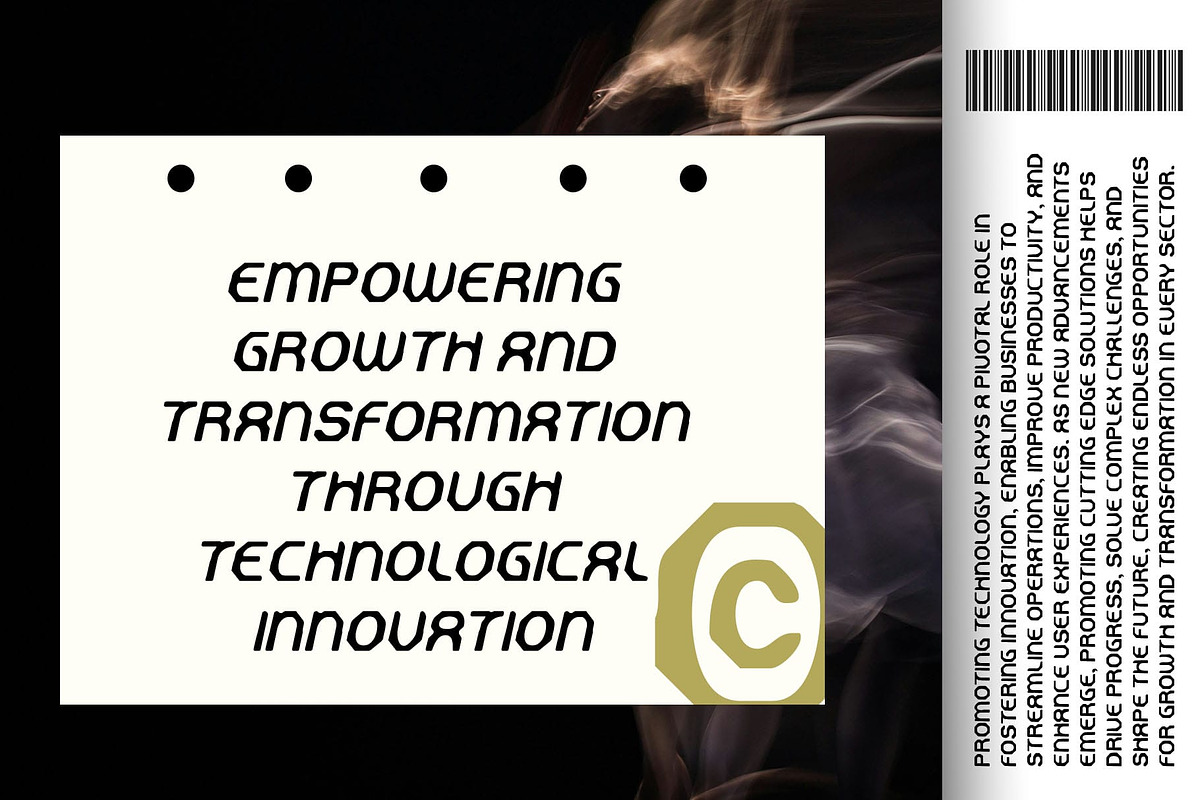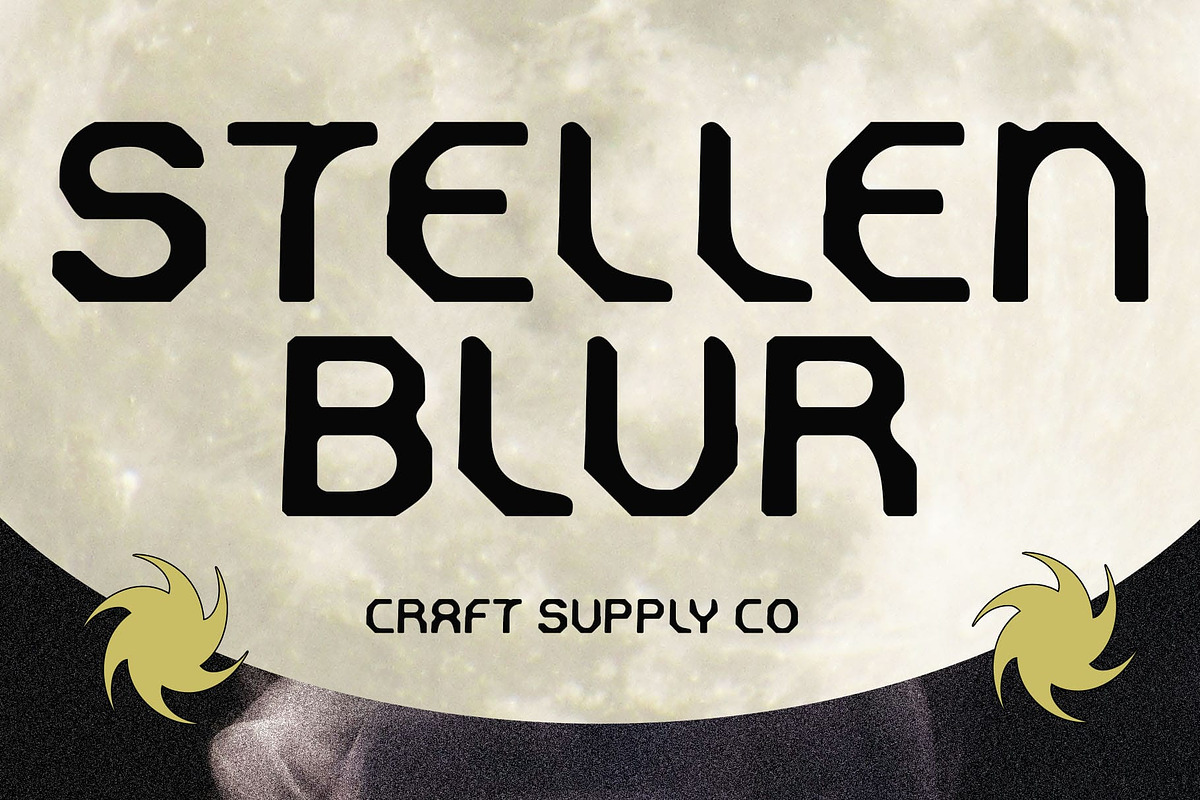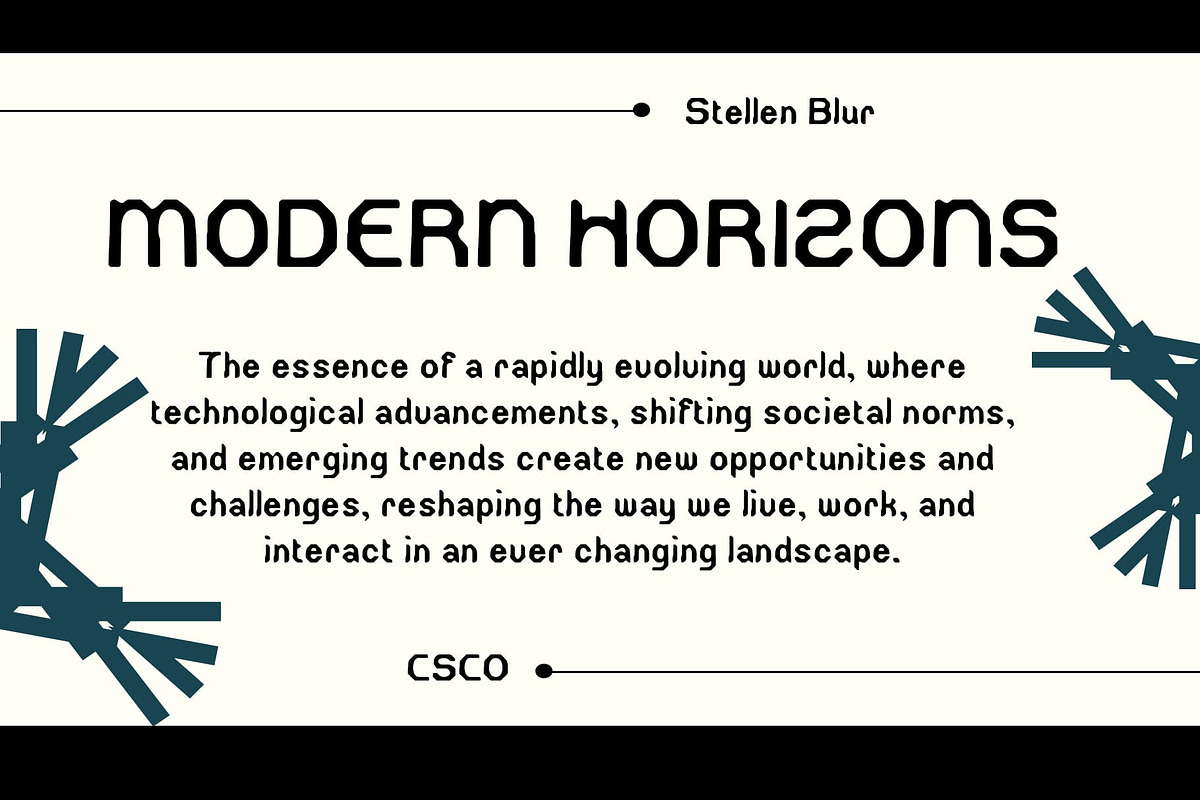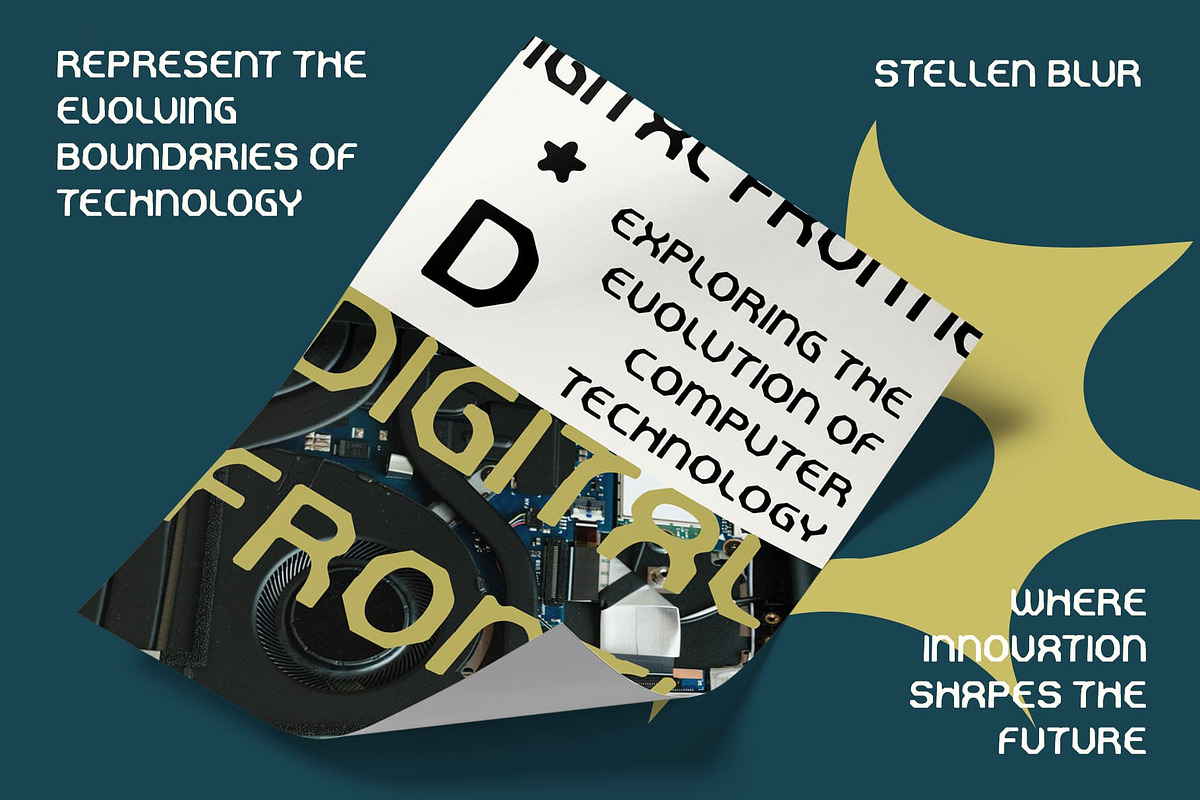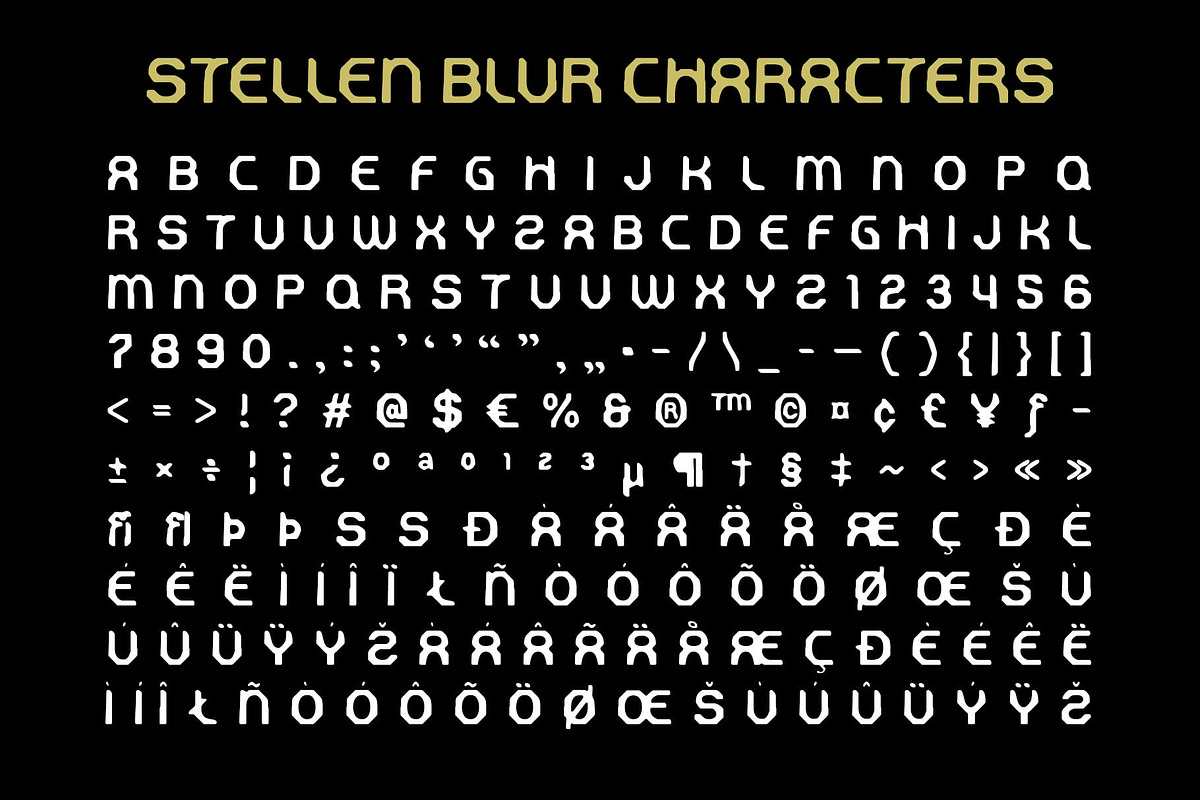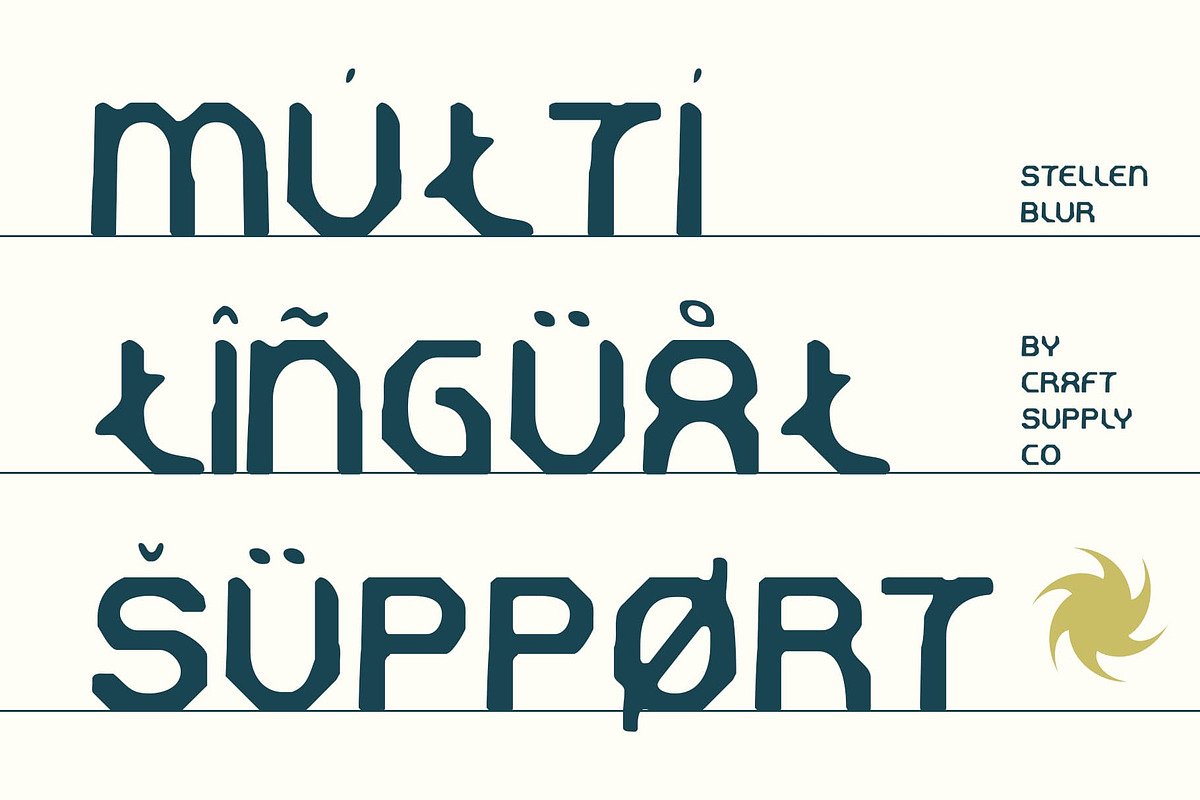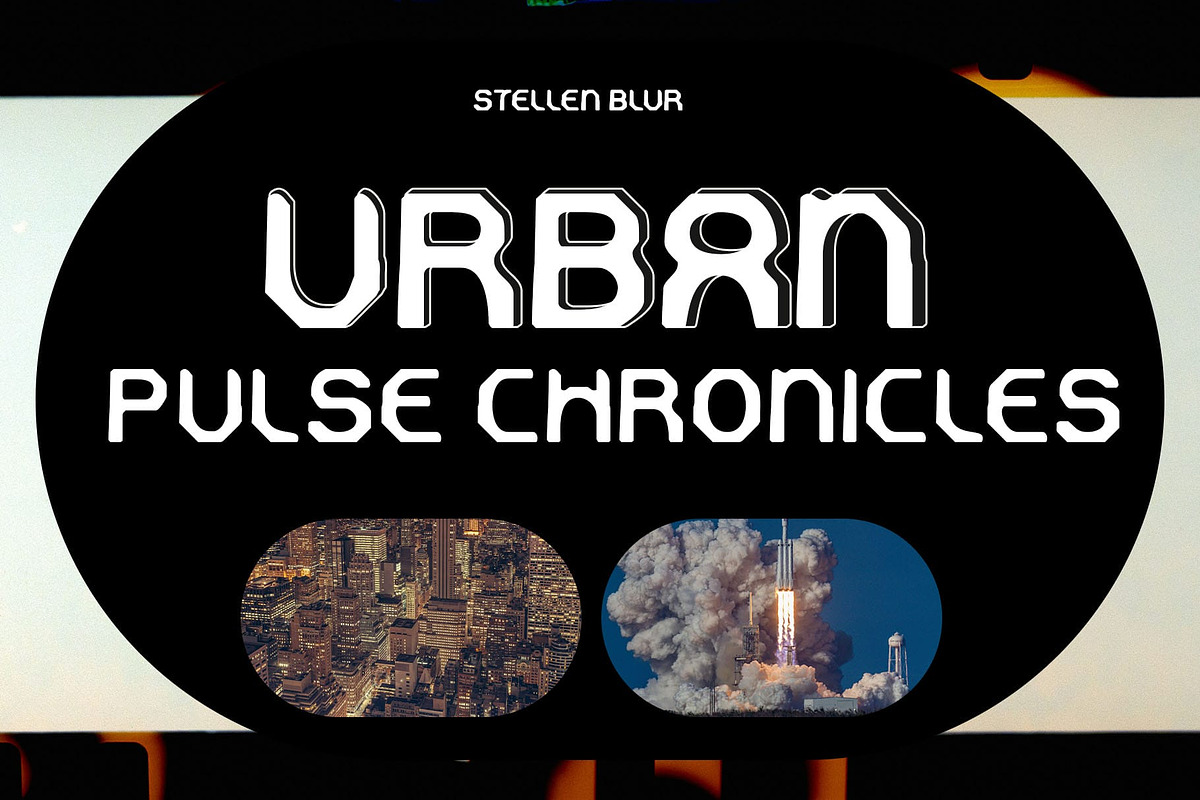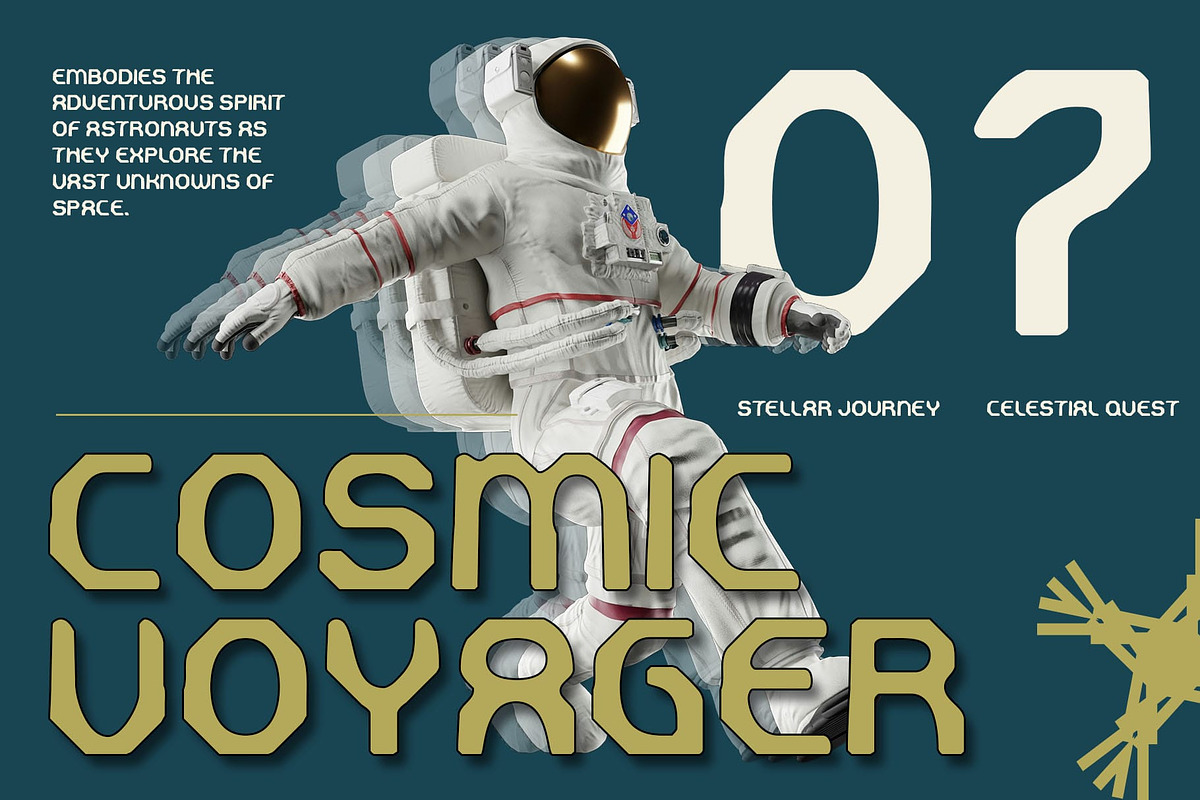
Stellen Blur
Stellen Blur Font: A Futuristic Fusion of Innovation and Motion
Modern Display Font with Futuristic and Techno Design Stellen Blur is a cutting-edge display font that combines sleek, geometric shapes with sharp lines and a techno-inspired aesthetic. Designed to capture the essence of the future, its dynamic forms evoke advanced technology and modern digital environments. The font’s futuristic qualities make it ideal for designs that require a high-tech, forward-thinking feel, offering a sophisticated and progressive presence in any project.
Blur Effect for Dynamic Visual Depth The standout feature of Stellen Blur is its captivating blur effect, which introduces an element of movement and abstraction. This unique effect softens the edges of the letterforms, creating a sense of flow and dimension that enhances the font’s overall visual impact. The blur adds a layer of intrigue, making it perfect for designs that aim to stand out with innovative and modern aesthetics.
Ideal for Digital and Futuristic Applications With its futuristic design and dynamic blur effect, Stellen Blur is ideal for digital design projects, including tech branding, futuristic posters, website headers, and promotional materials. Whether you’re creating visual identities for cutting-edge tech companies or crafting eye-catching graphics for futuristic events, Stellen Blur elevates your design with its modern and visually engaging style.